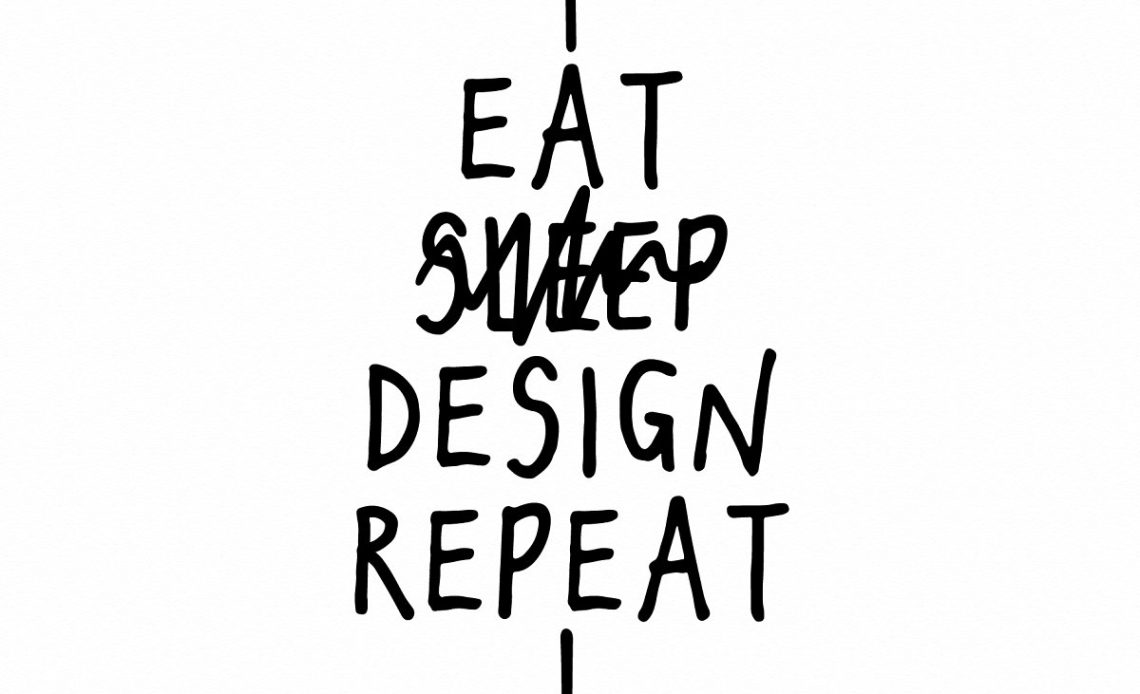
An effortlessly cool and casual marker font, 100% uppercase, 100% pretty awesome (ask our mums). Alternate fonts included so you can mix and match and get a little weird.
Hand-drawn with a Sharpie and converted into a font so you can sleep easy knowing your Stolen font is unique 😉